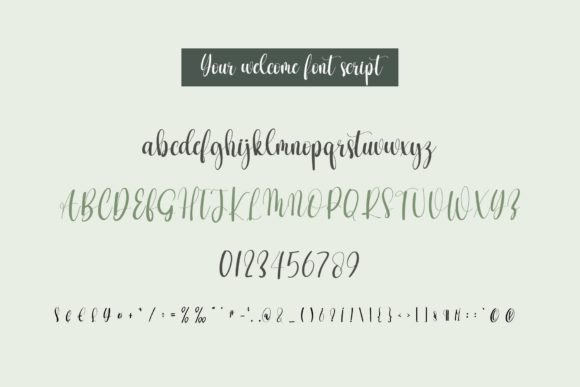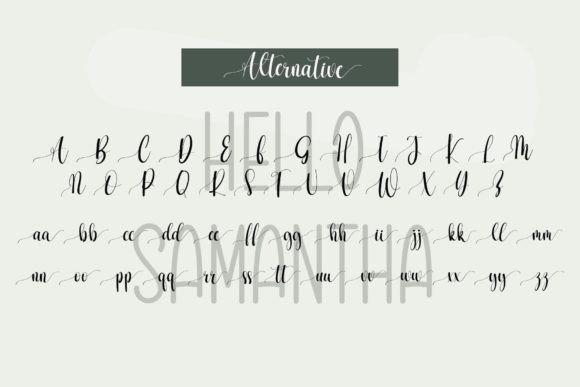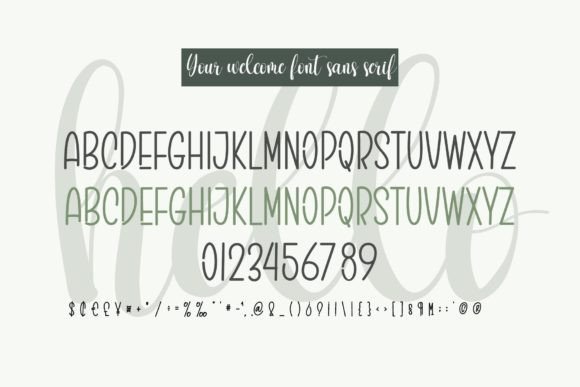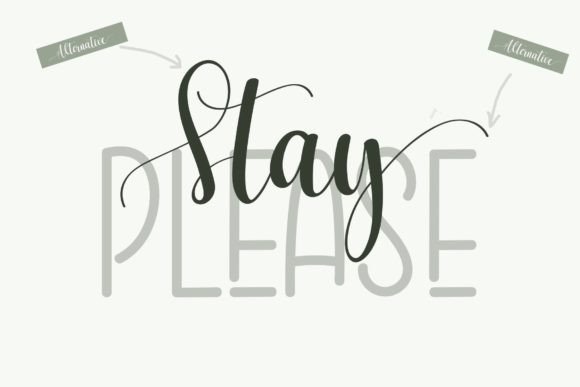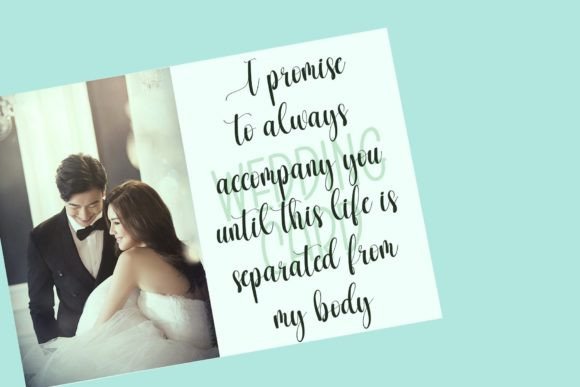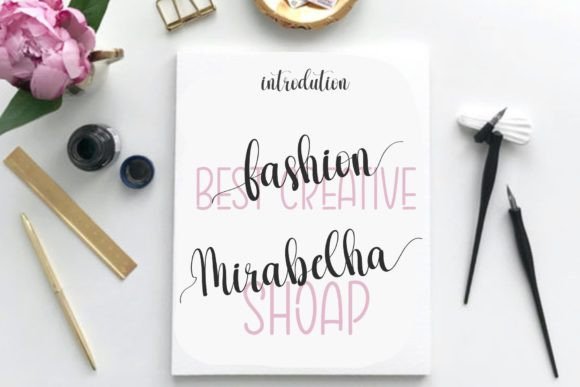
Introduction to Hello Samantha Font
Hello Samantha is a stylish and delicate duo font (script and sans serif) suitable for a wide spectrum of applications.
From greeting cards to headlines, this font will guarantee a romantic touch to each of your creations Hello Samantha is PUA encoded, which means you can access all of the glyphs and swashes with ease.
Key Features of Hello Samantha Font